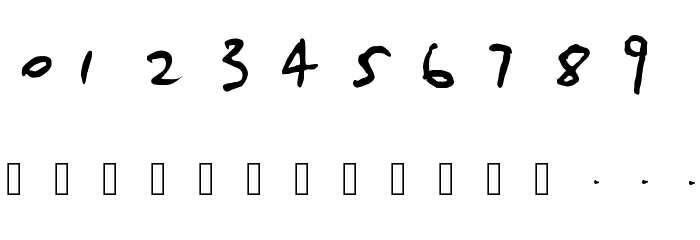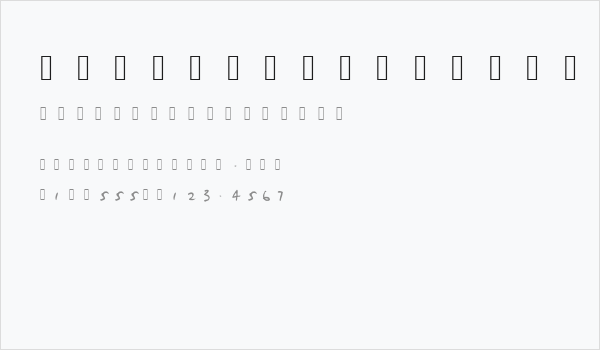
Grandfather's Hand Font
Grandfather's Hand Description
This font features a handwritten style that exudes a personal and informal touch. The characters are crafted with a natural flow, resembling authentic handwriting. The numbers are distinct, with slight variations in stroke width, adding to the organic feel. This style is reminiscent of casual notes or personal letters, providing a warm and approachable aesthetic. The font's simplicity and clarity make it suitable for projects that require a human touch, such as personal branding, invitations, or creative projects that aim to convey a sense of intimacy and authenticity.
A handwritten font with a personal and informal style from Uncategorized fonts.
- Proposed Projects: Ideal for personal branding, invitations, greeting cards, and creative projects requiring a human touch.
- Overall Style: Casual, Personal
- Use Case: Logos, Invitations, Personal notes